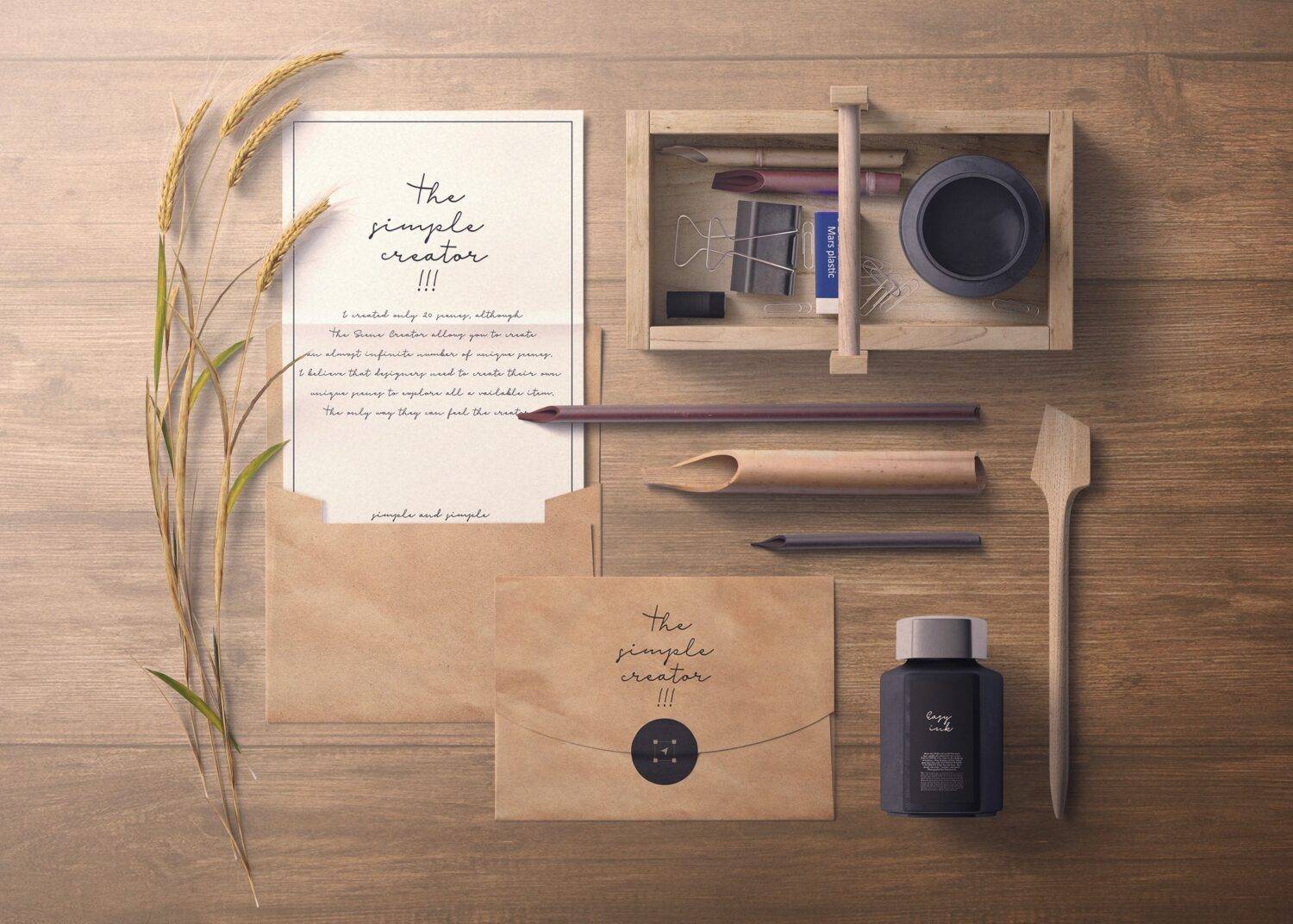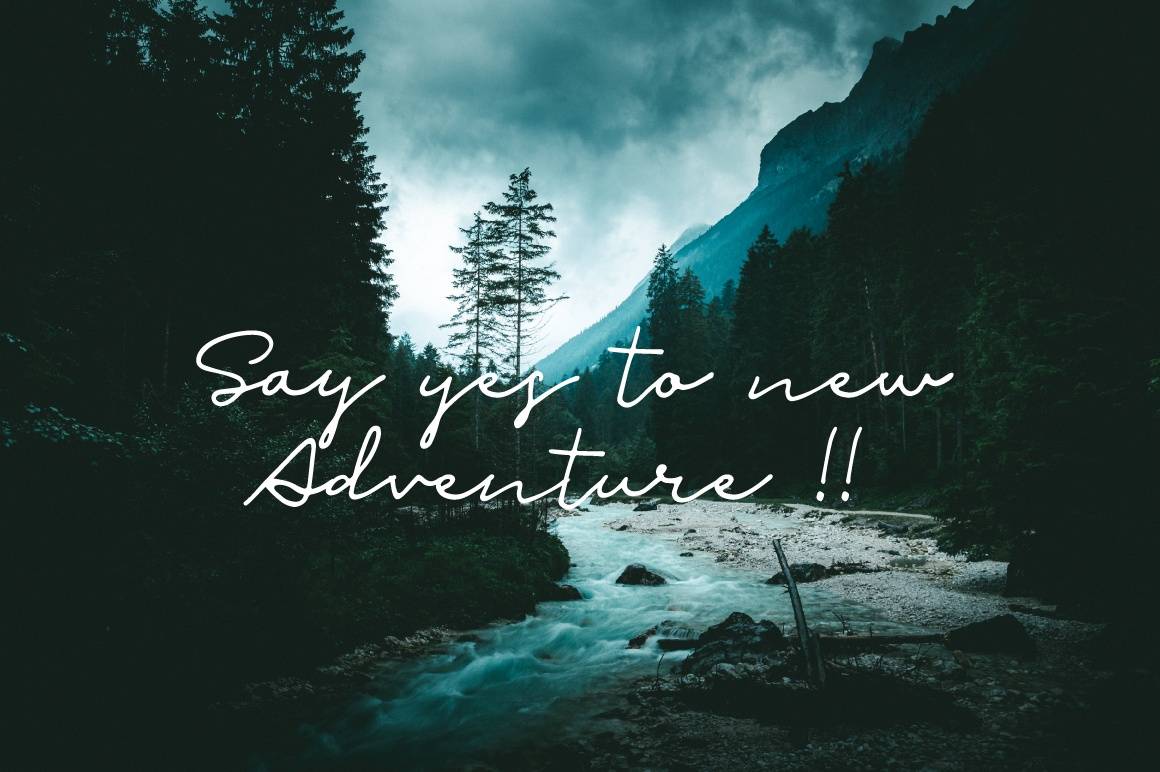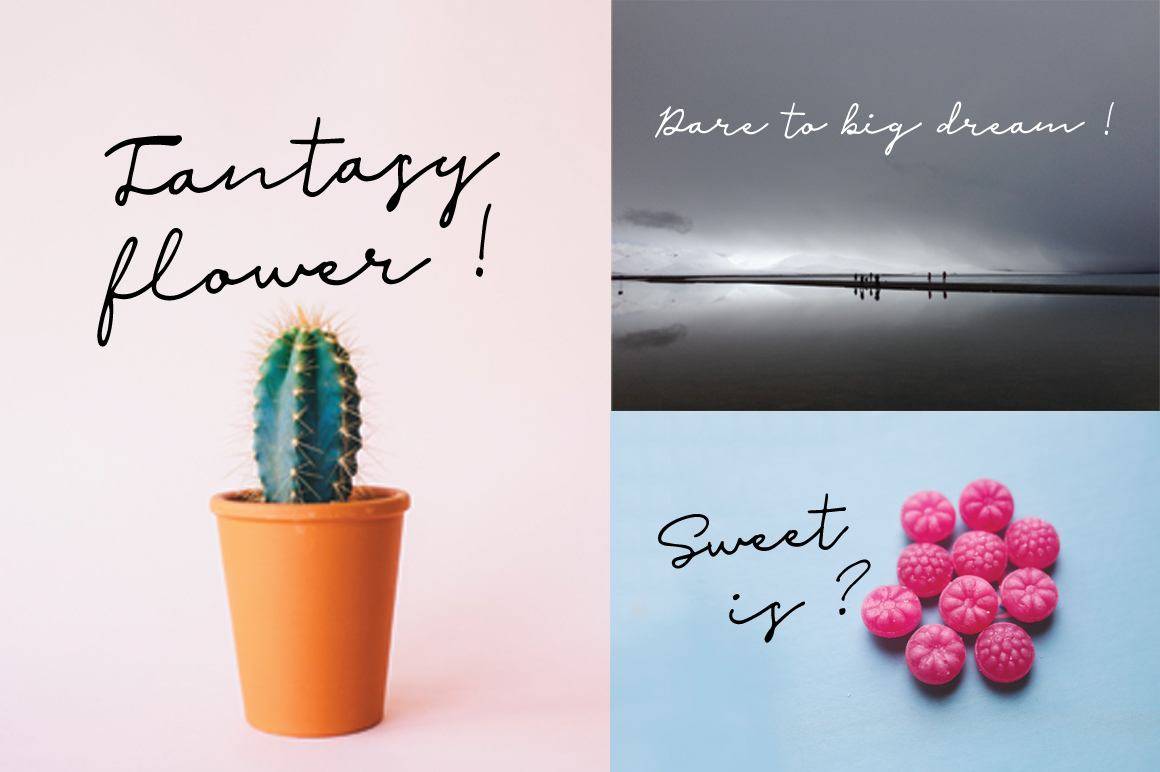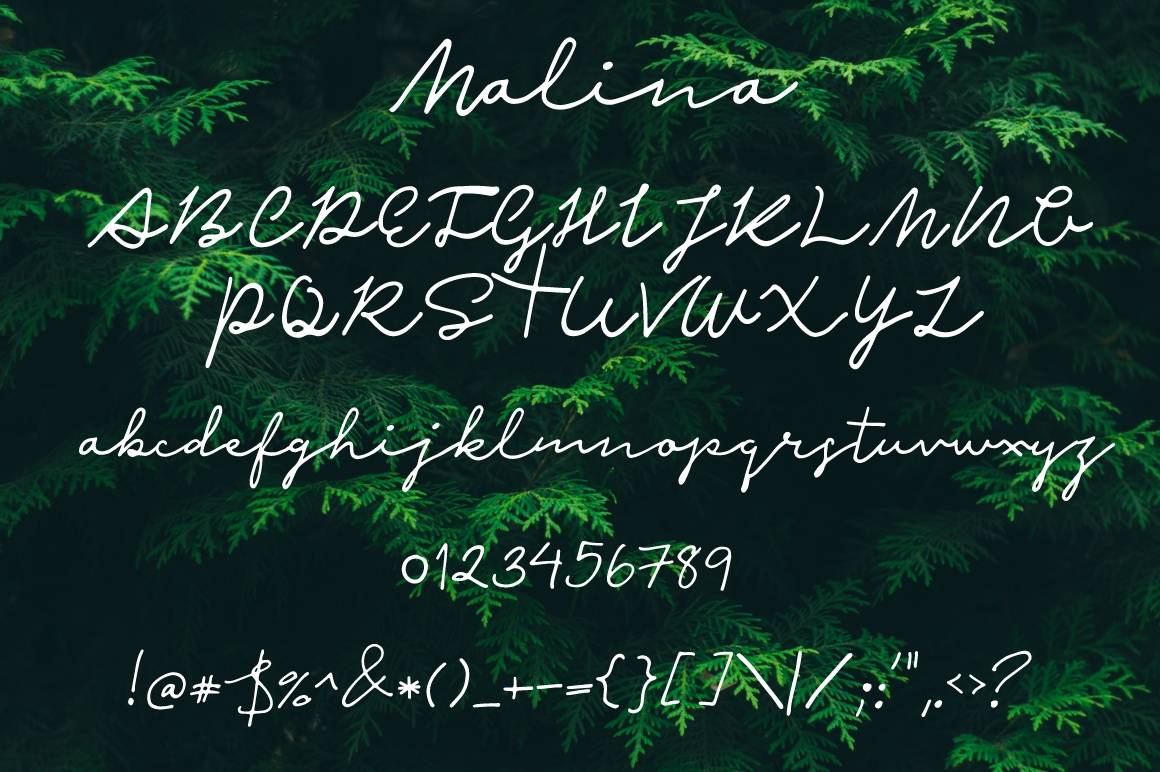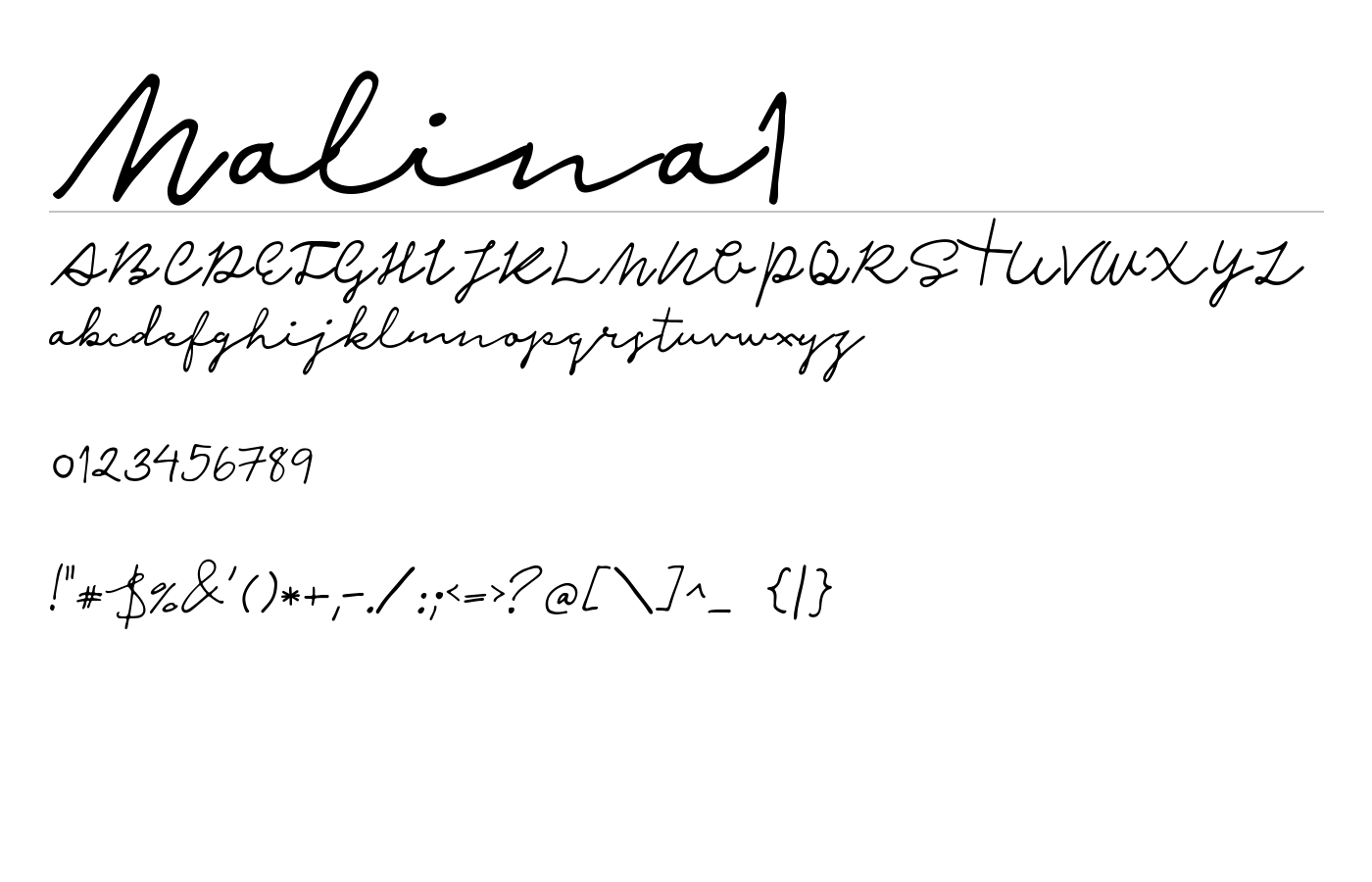
Malina is a delicate, handwritten script font with a light, airy feel and elegant, flowing letterforms. Its thin strokes and unique character shapes give it a personal, artistic touch, making it ideal for creative projects, invitations, branding, and any design that seeks a soft, approachable, yet refined aesthetic. This font’s casual yet stylish vibe works beautifully where a natural, handcrafted impression is desired.
Malina Font
About Malina Font